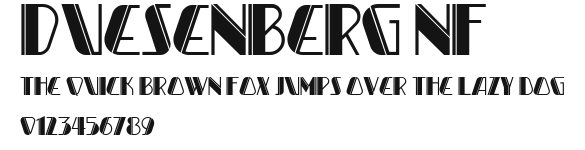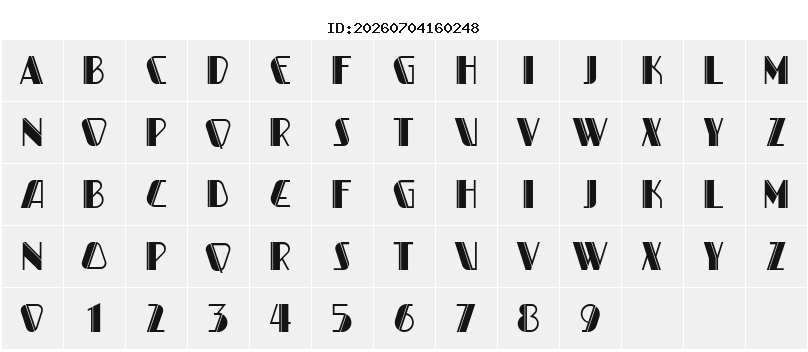
• Font Name: Duesenberg NF
• Full Font Name: Duesenberg NF
About Duesenberg NF.ttf
Duesenberg NF.ttf is a modern, elegant sans-serif font designed for ultimate readability and visual harmony. Perfect for branding, headlines, web design, and print materials.